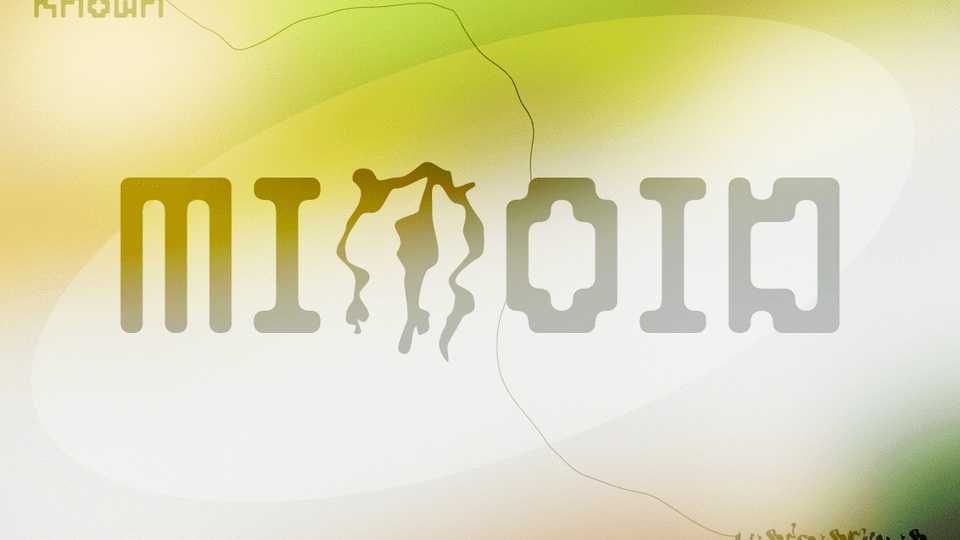
Download Mimoid font, a display typeface, an attempt to visualization the relation and differences between Earth and Solaris – planet presented in the most famous work by Stanisław Lem.